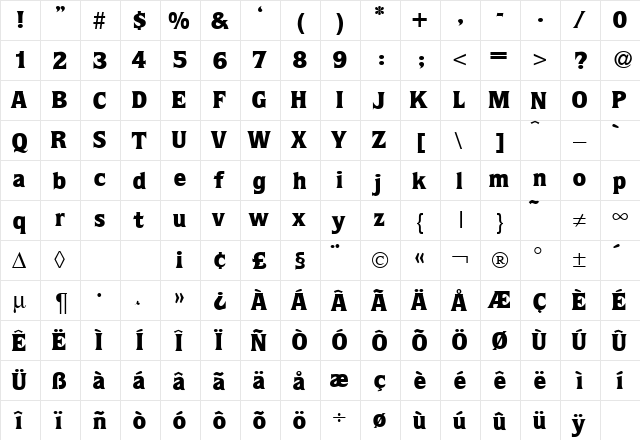
QuotaBlack DB Regular
Design Context for QuotaBlack DB Typeface
QuotaBlack DB is a composed and adaptable typeface that performs quietly and consistently across a wide range of design contexts.